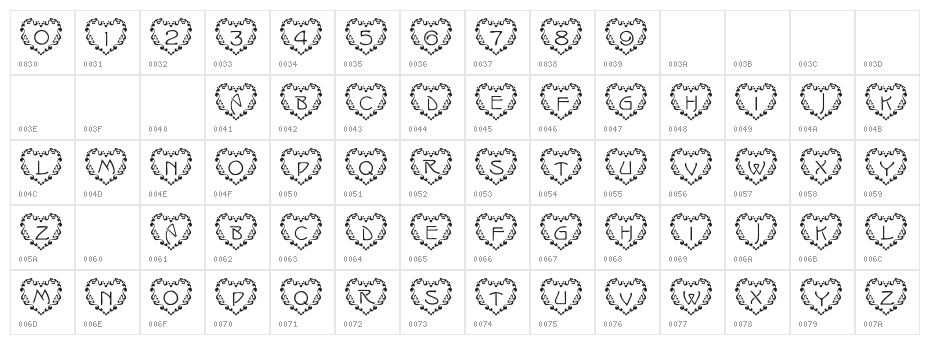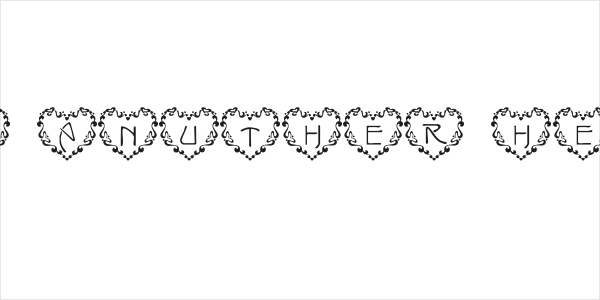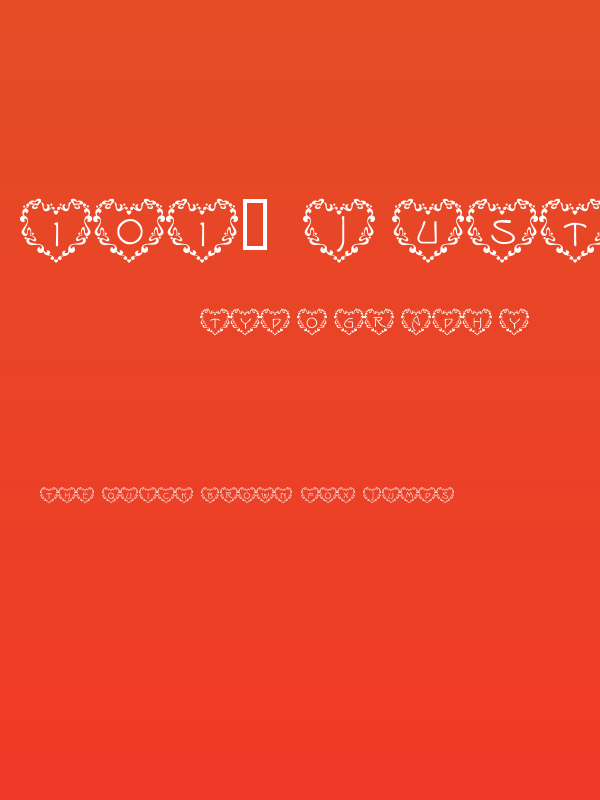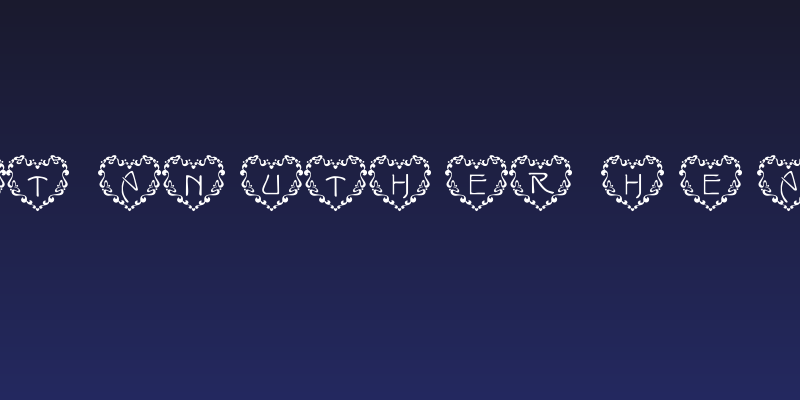
101! Just Anuther Heart Font Font
101! Just Anuther Heart Font Description
This decorative font features each character enclosed within a heart shape, adorned with intricate floral patterns. The letters are uppercase and lowercase, along with numbers and a selection of special characters. The design is playful and romantic, making it ideal for projects that require a touch of whimsy and affection. The heart motif is consistent across all characters, providing a cohesive and charming appearance. The font's unique style is perfect for creating eye-catching designs that stand out.
| Proposed Projects | Ideal for wedding invitations, Valentine's Day cards, romantic event posters, and playful branding materials. |